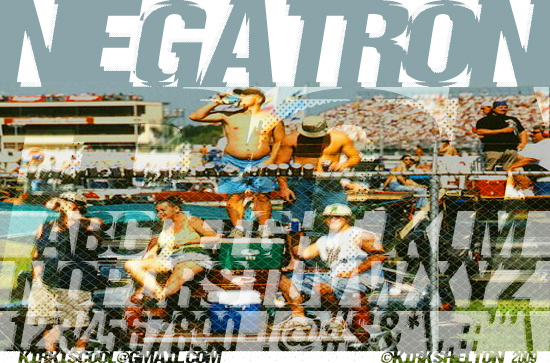
Font name: | Negatron |
Author: | Kirk Shelton |
Note by Kirk Shelton | |
all caps. negative space. has halftone that may work better for hi-res applications. thanks! |